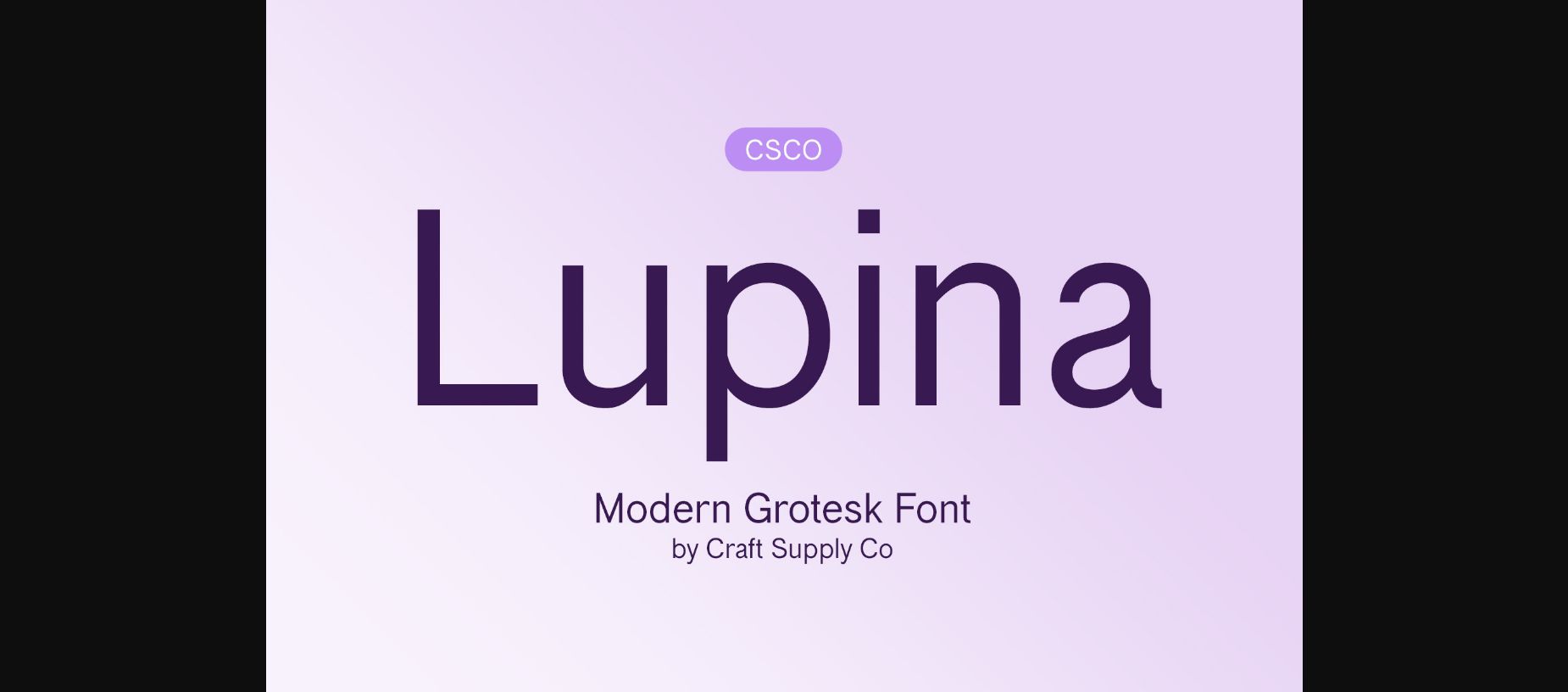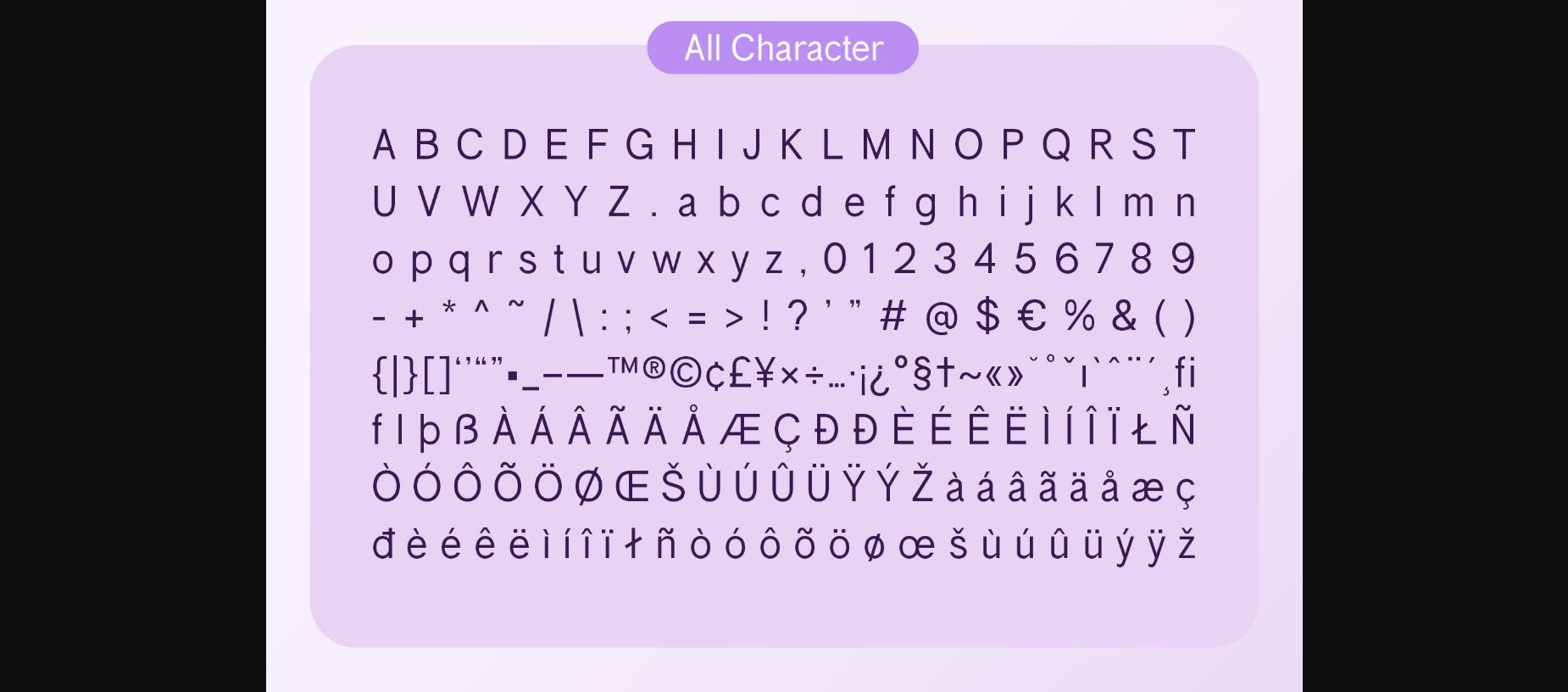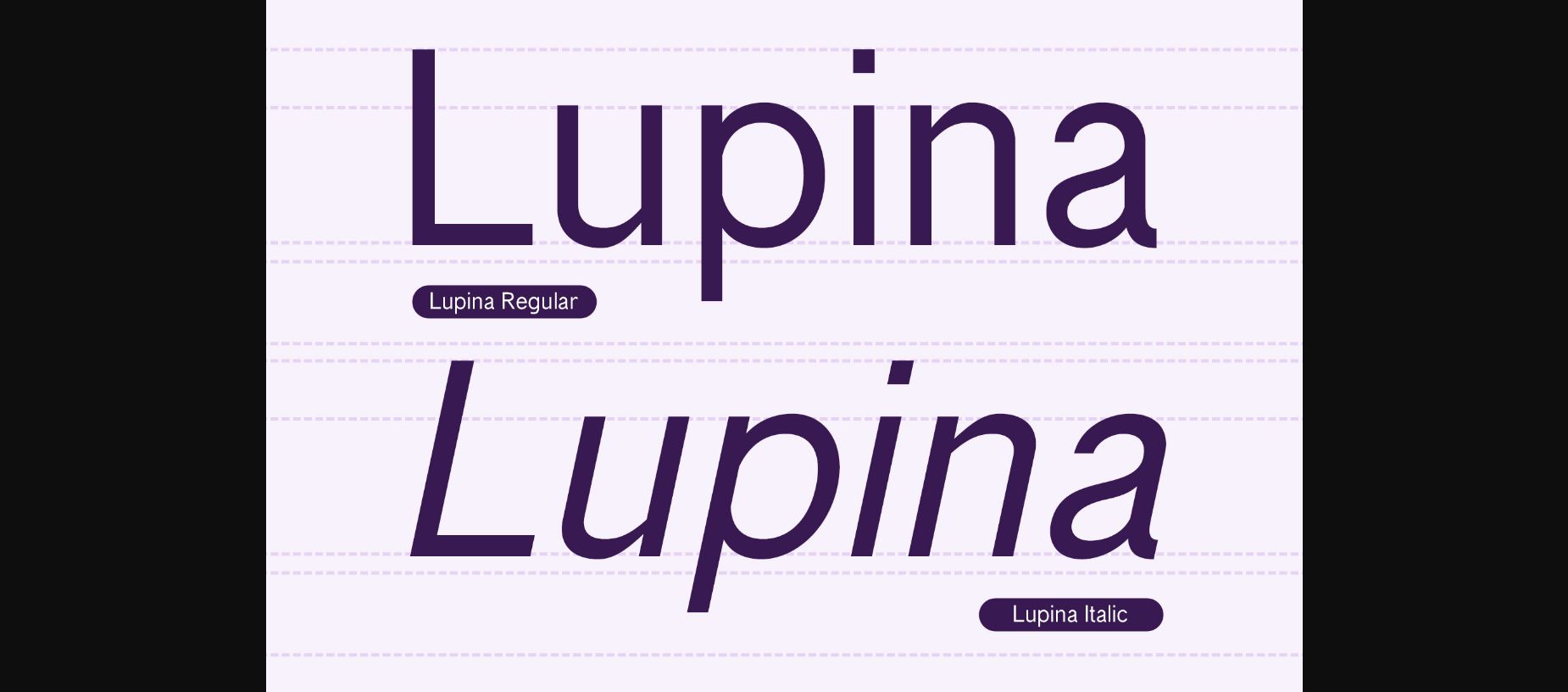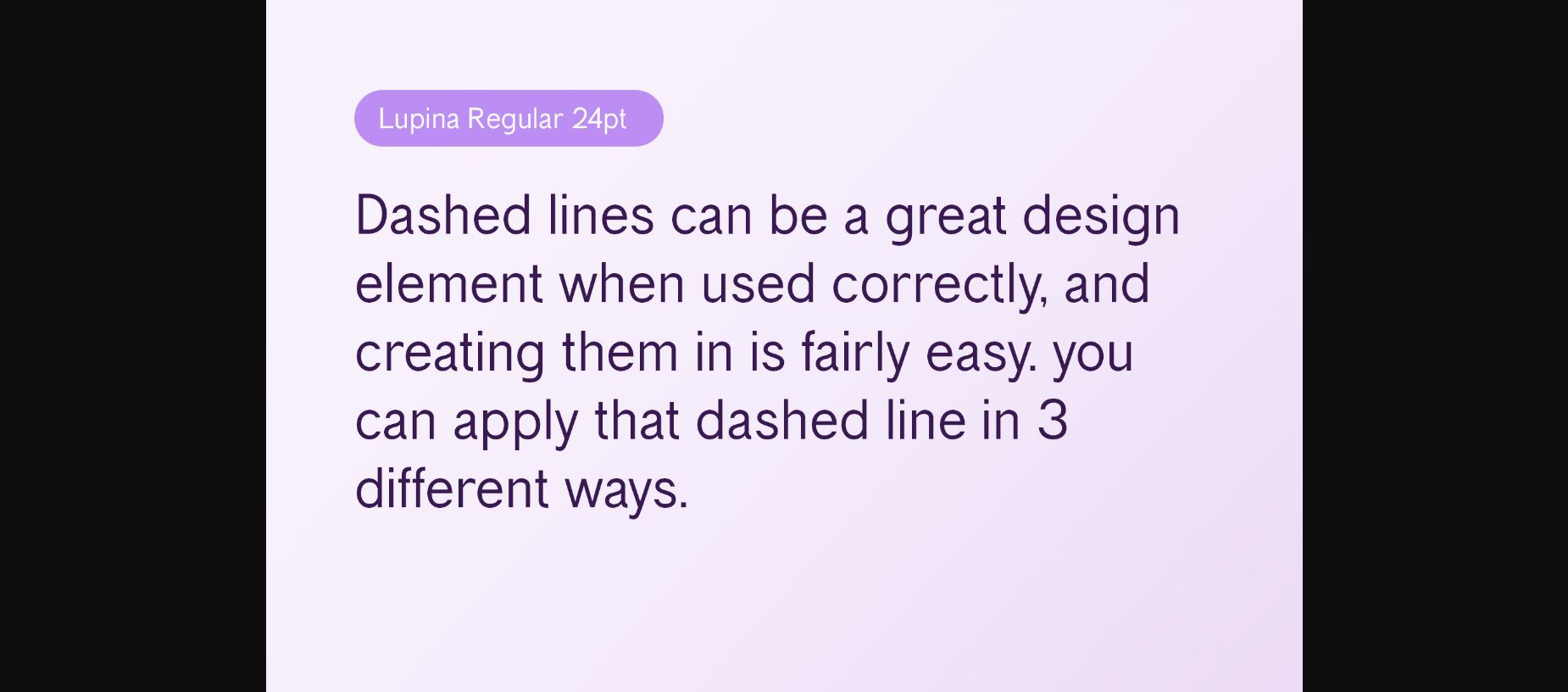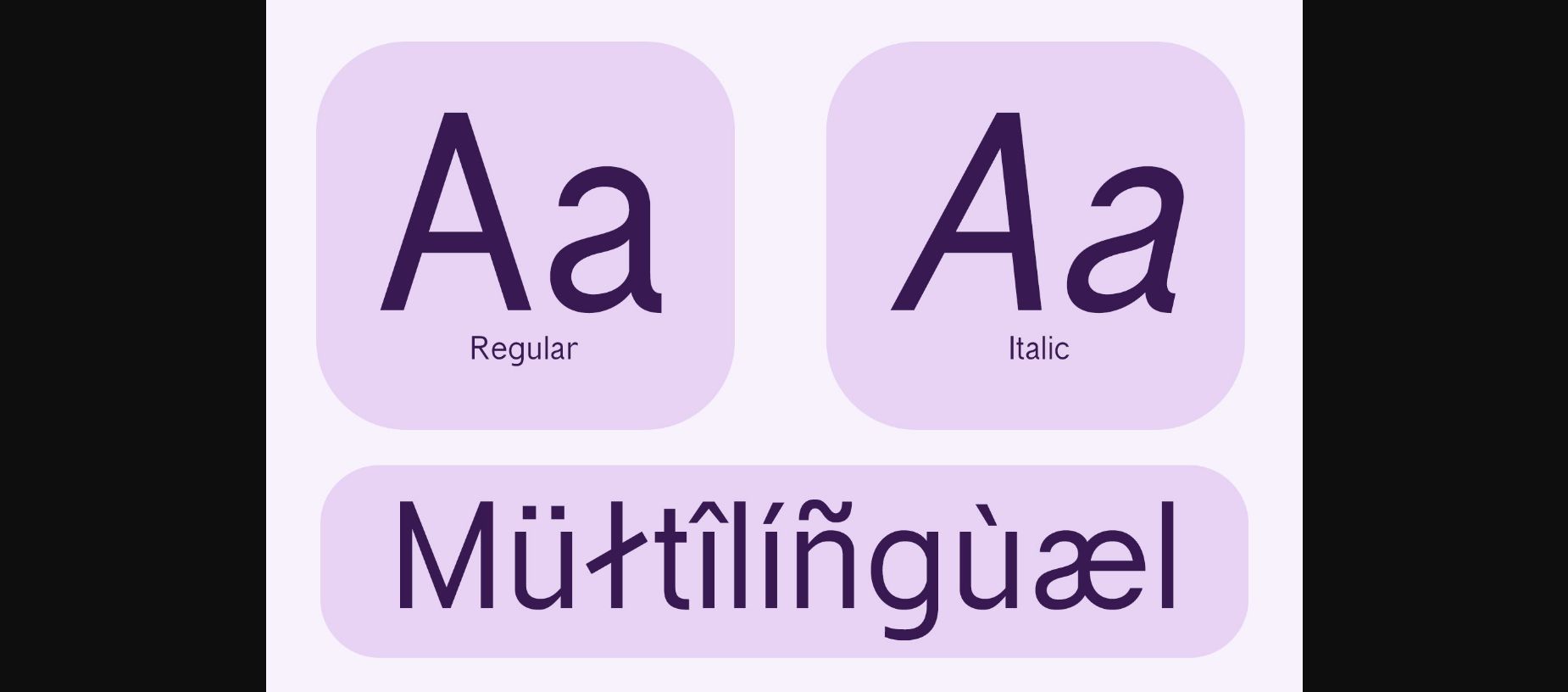
About Lupina Font
Introducing Lupina, where modern simplicity meets timeless sophistication. This sleek sans-serif grotesque font effortlessly enhances your projects with a clean, contemporary vibe.
This typeface is ideal for greeting card, packaging, brand identity, poster, or any purpose to make your design project look eye catching and trendy. Feel free to play with this typeface!